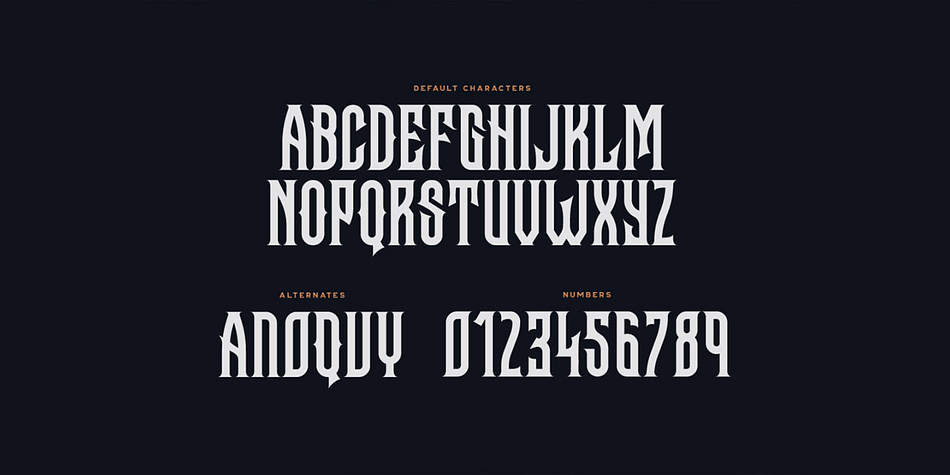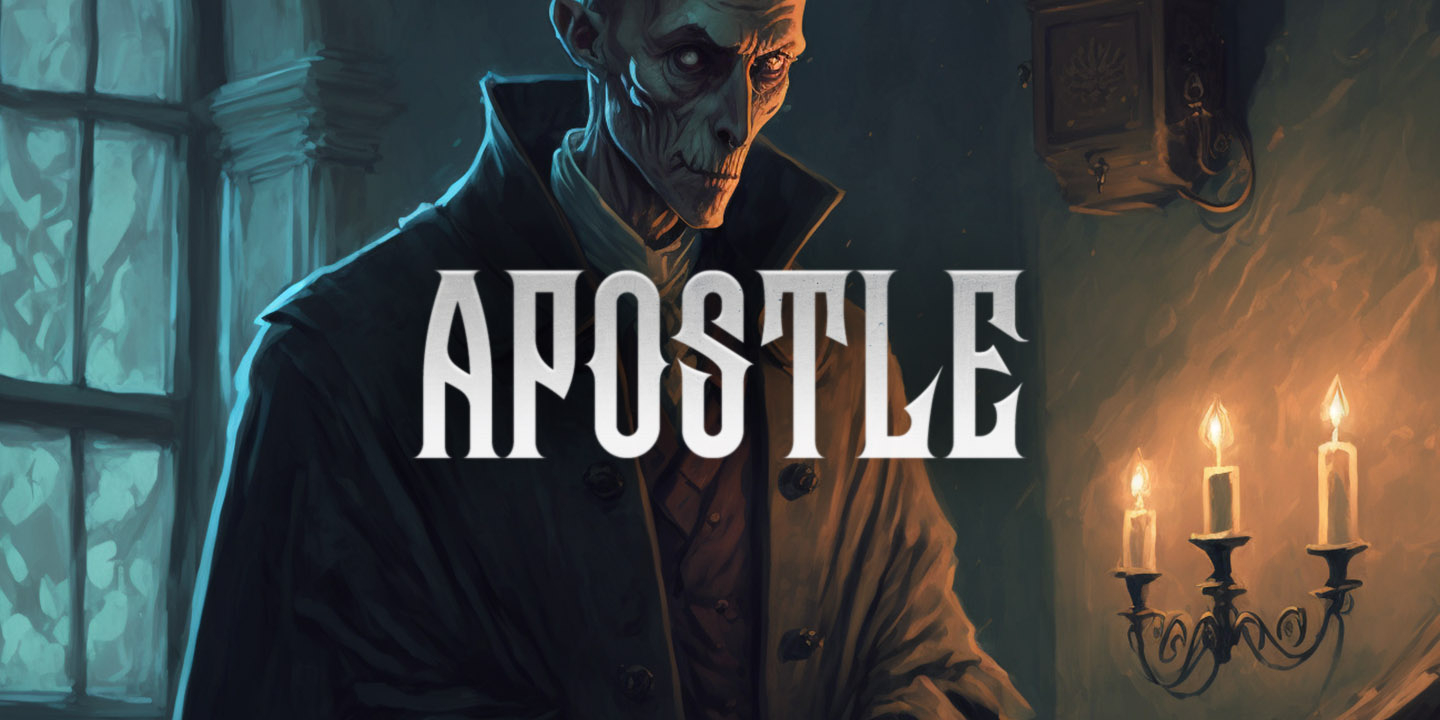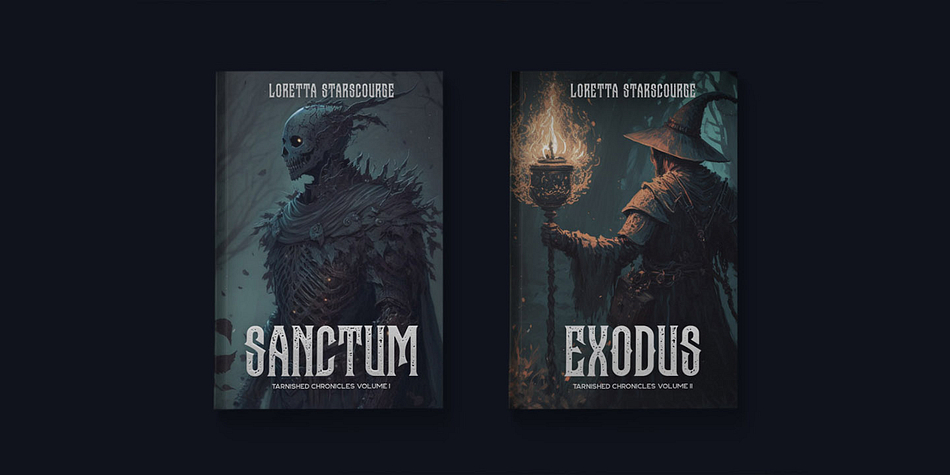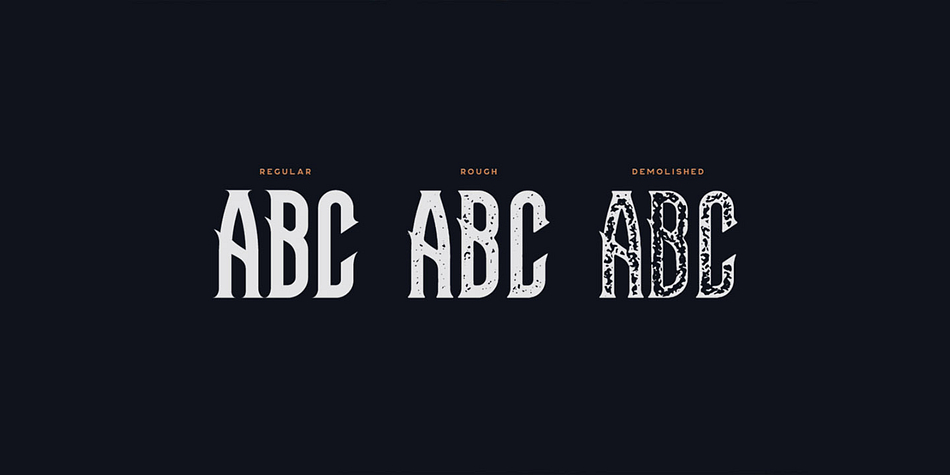
Apostle
Apostle is a display serif font family. This typeface has three styles and was published by Tugcu Design Co.
Apostle is a fantasy font with a couple of alternate letters that can be toggled via Caps Lock. Comes in three styles.